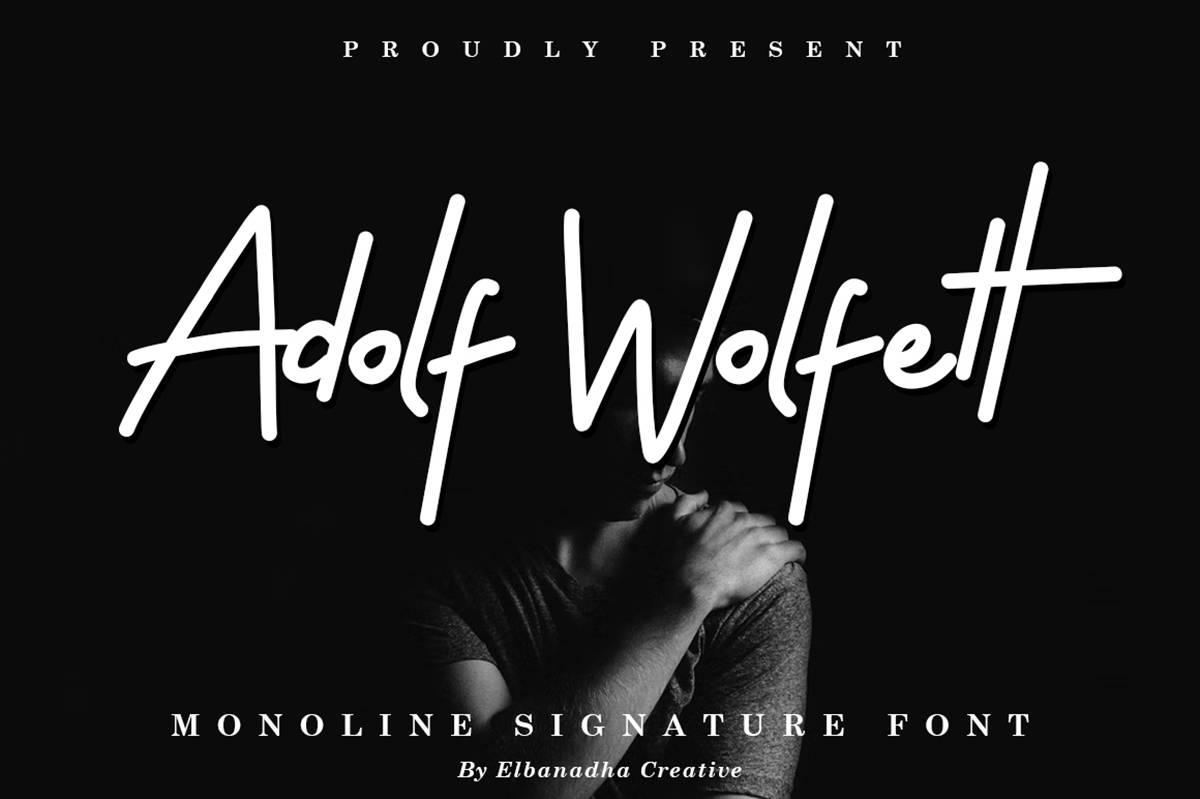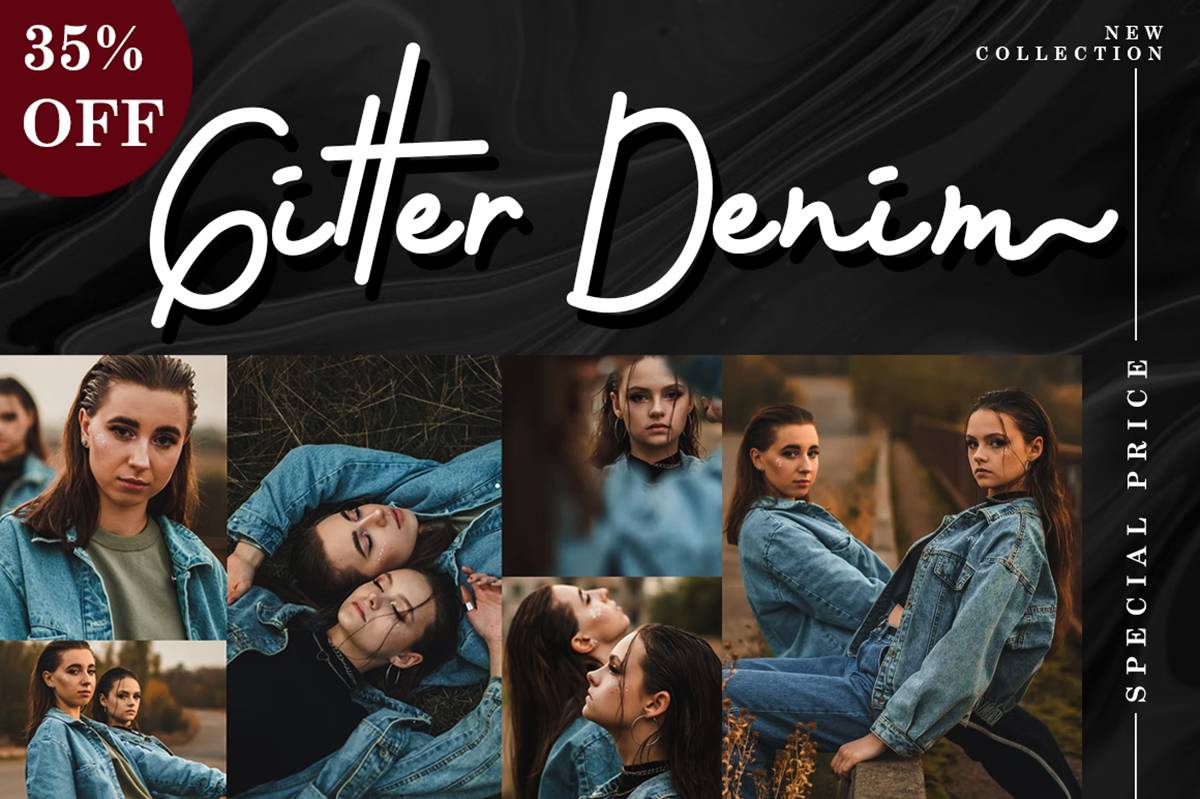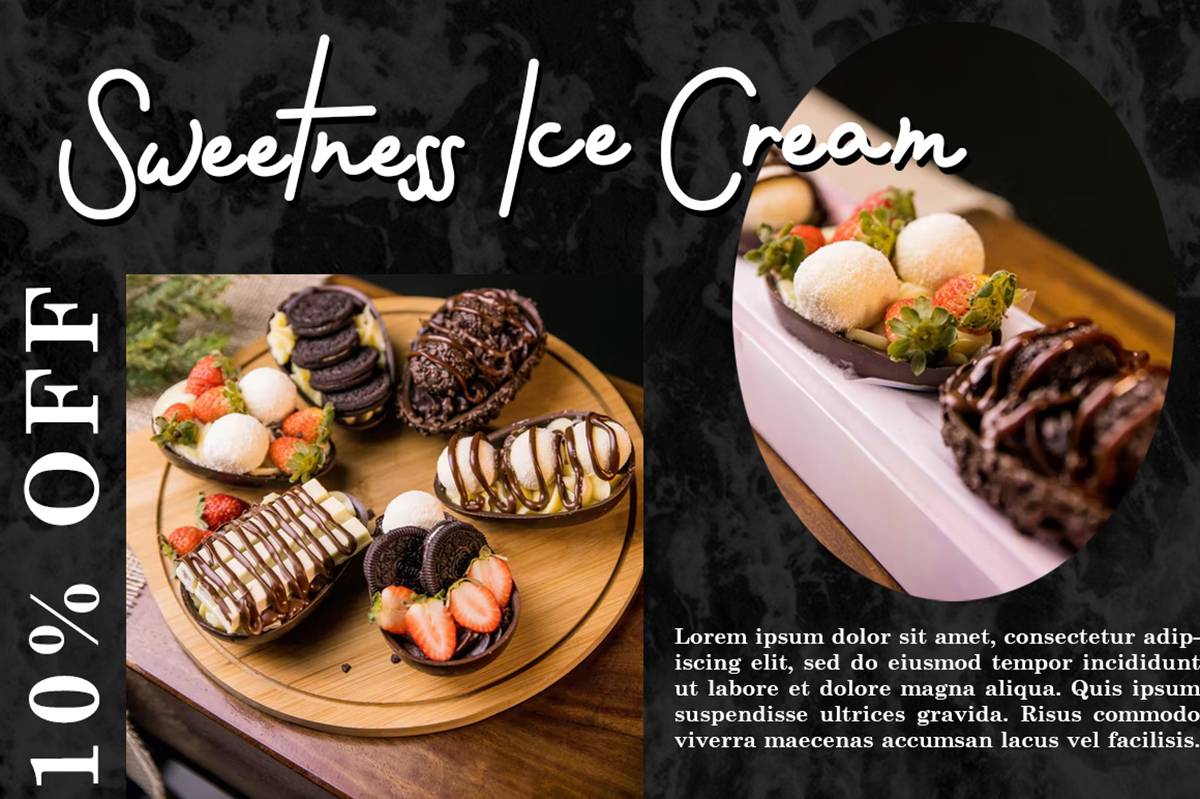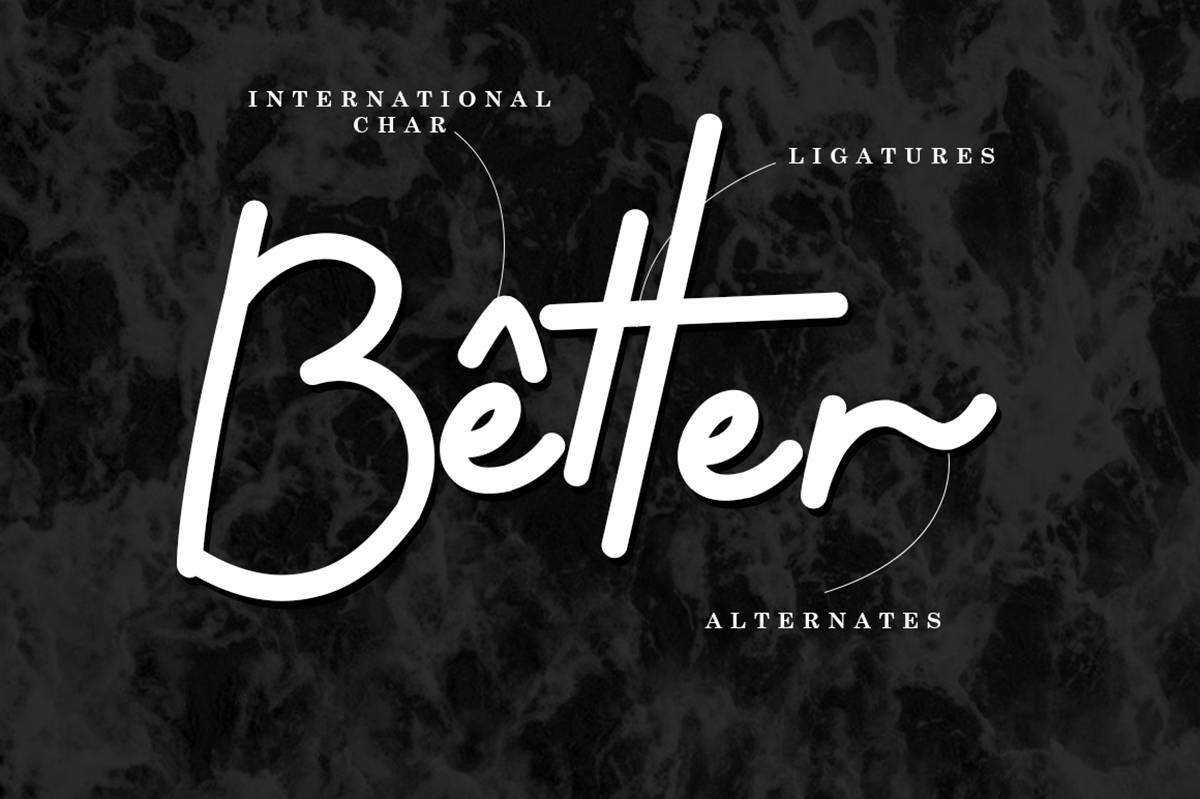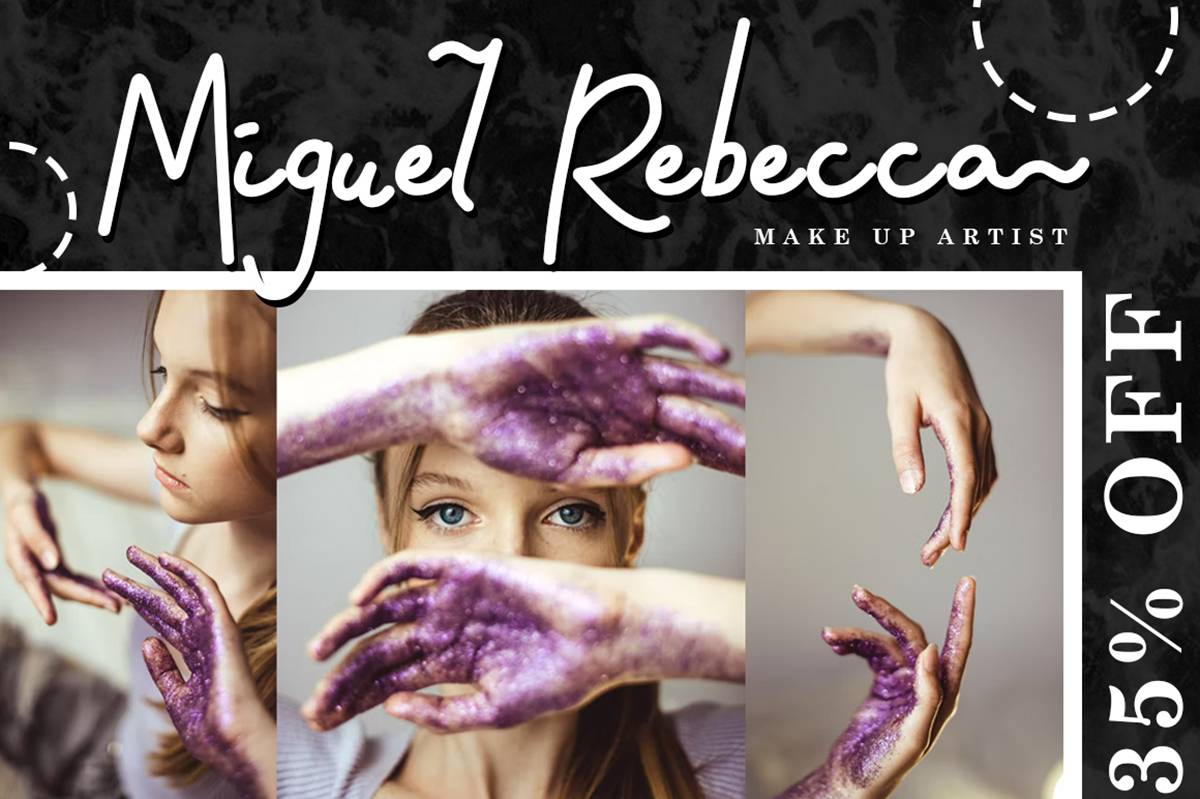
Adolf Wolfett is a casual, handwritten-style sans serif font characterized by its tall, narrow letterforms and playful, slightly uneven strokes that convey a friendly and informal vibe. Its light weight and condensed width make it ideal for expressive headlines, creative branding, or personal projects where a quirky, approachable touch is desired. This font works well in designs aiming to capture spontaneity and personality without sacrificing readability.
Adolf Wolfett Font
About Adolf Wolfett Font
| Font family | Adolf Wolfett Font |
| Designer | Elbanadha Creative |